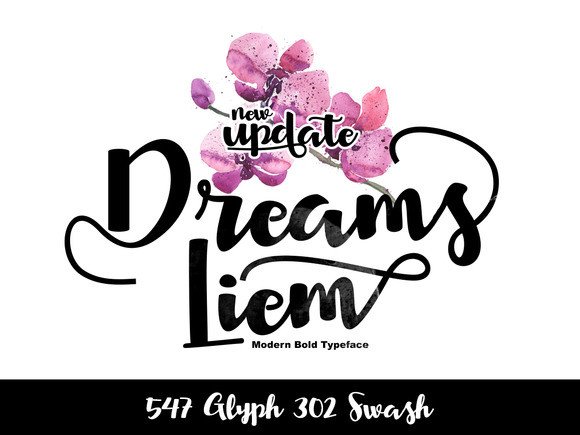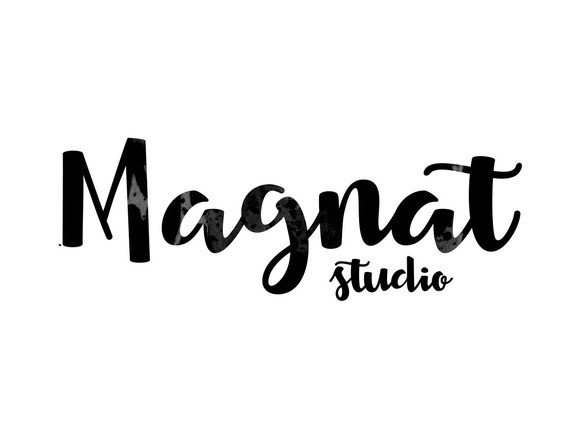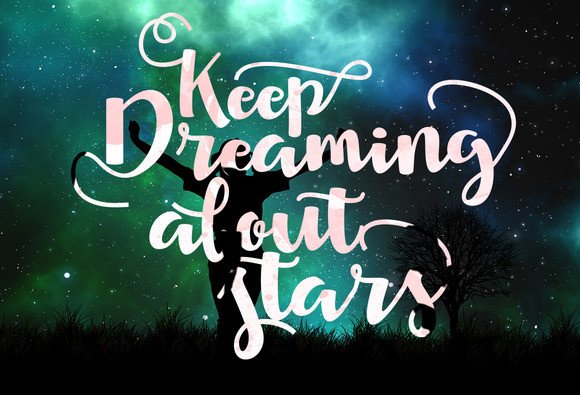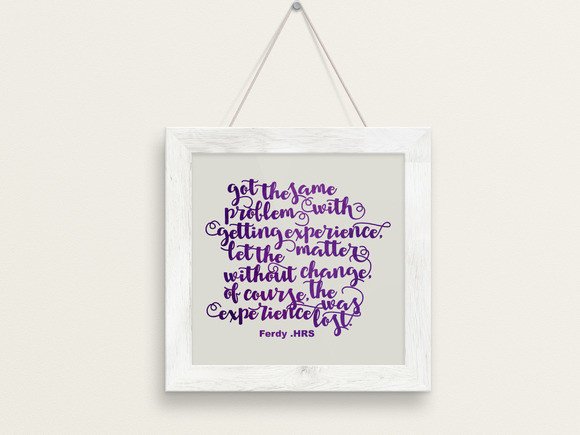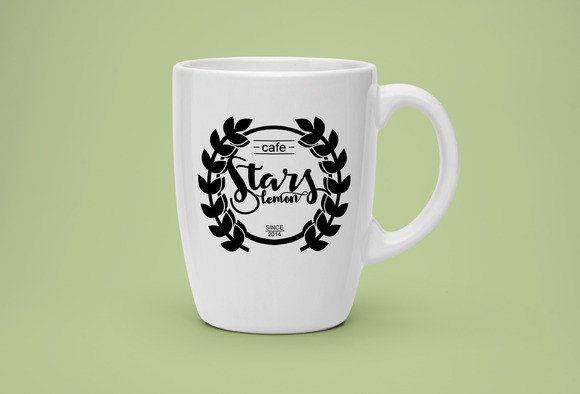
Dreams Liem Font
About Dreams Liem Font
Dreams Liem is a stunning high impact font with tons of style! This script font is a great headline font, and is suitable for both digital and print designs.